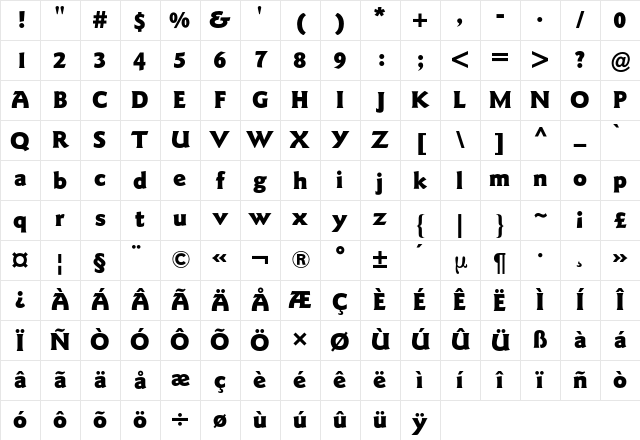
Goudy Sans BQ Regular
Goudy Sans BQ Family
Goudy Sans BQ Regular
Complete Goudy Sans BQ Regular glyph index. Displaying only characters natively supported by Goudy Sans BQ Regular font.
Design Context for Goudy Sans BQ
Goudy Sans BQ is a composed and adaptable typeface that performs quietly and consistently across a wide range of design contexts.
Pro Tip: Use Goudy Sans BQ in both headline and body roles to test its range before committing to a single application.